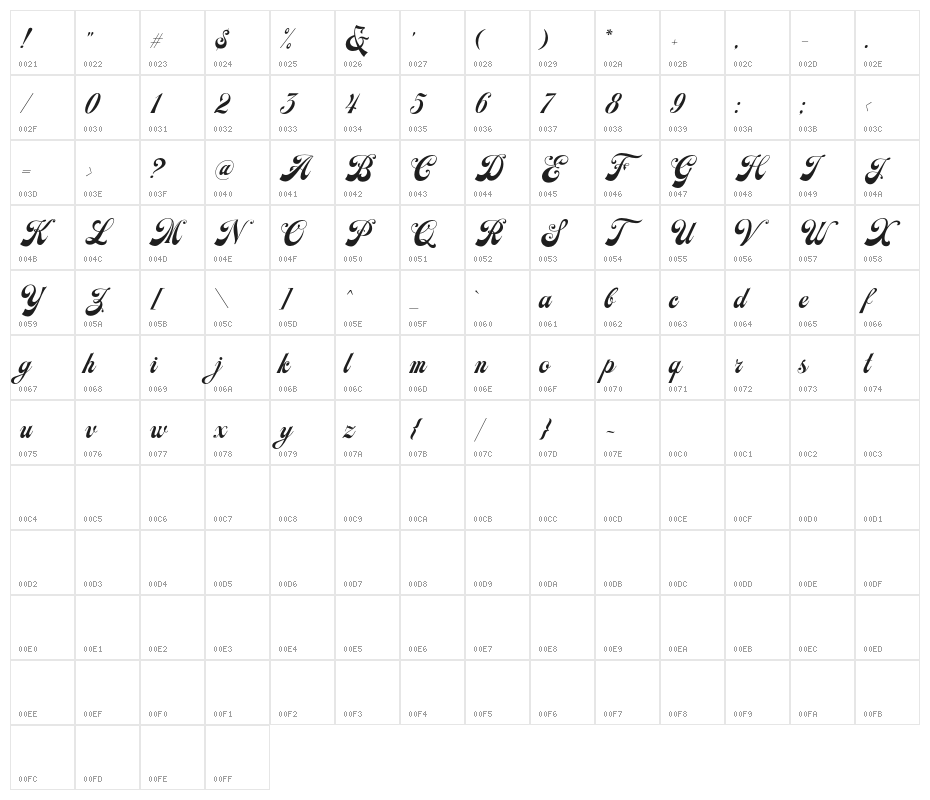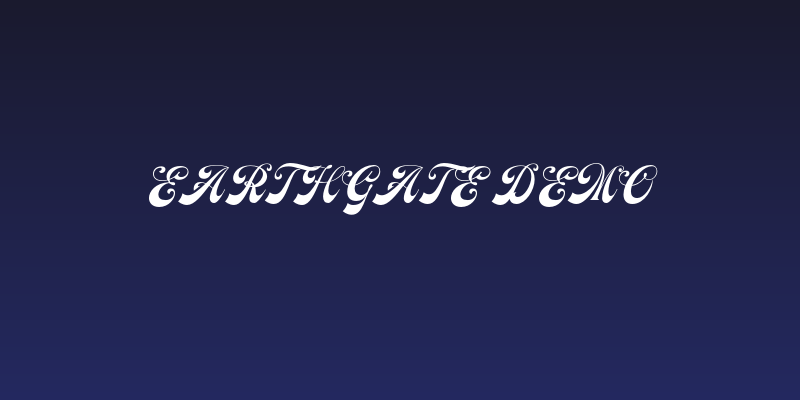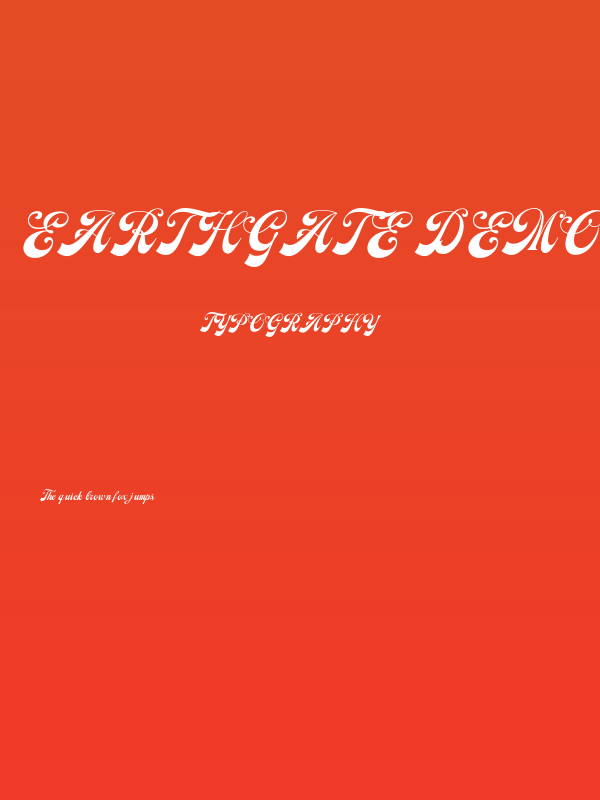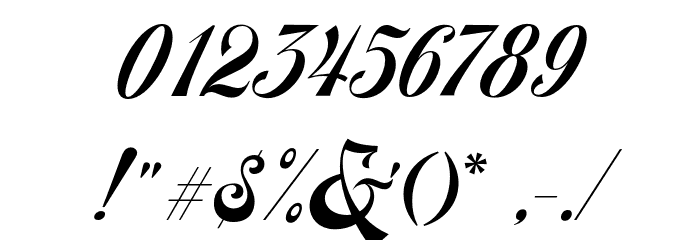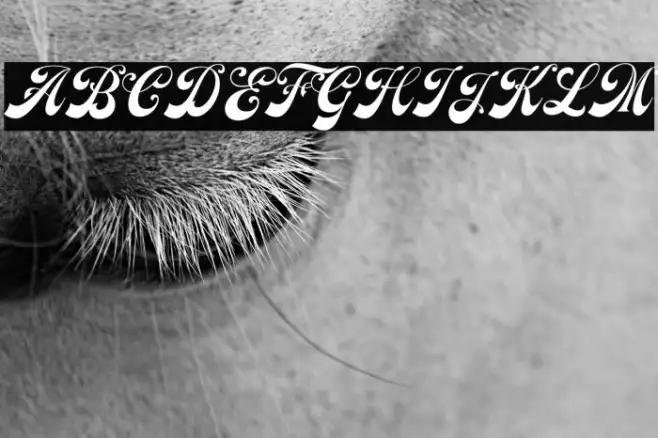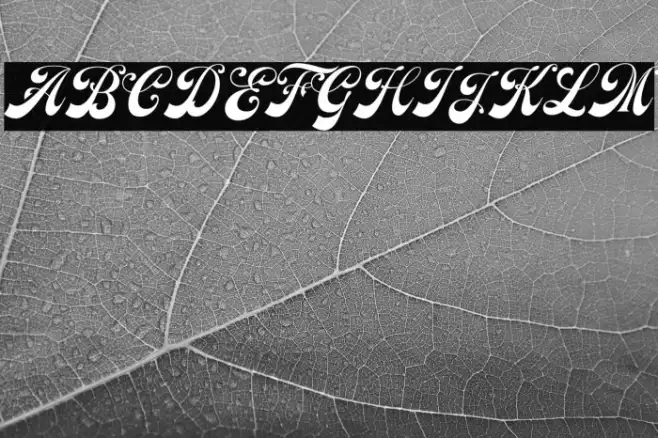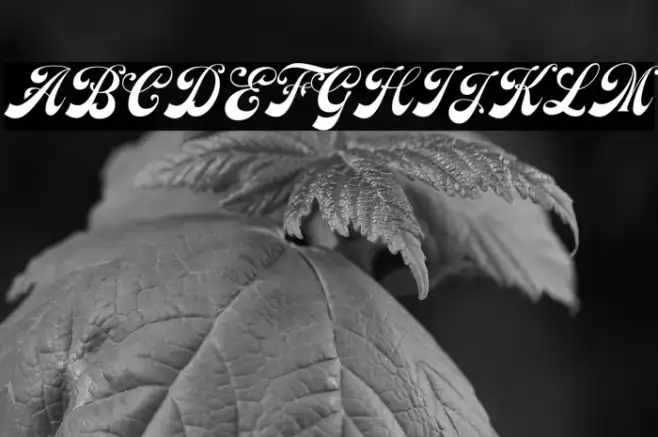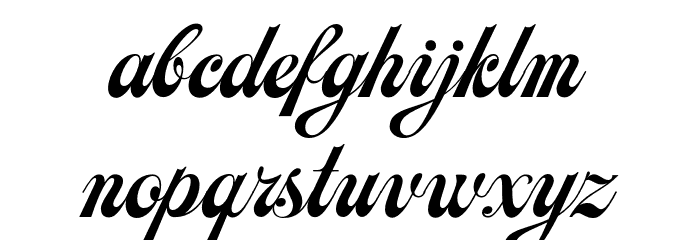
Earthgate DEMO Font
Earthgate DEMO Description
This font features an elegant and ornate script style, characterized by its flowing, cursive letterforms and decorative flourishes. The uppercase letters are particularly elaborate, with intricate loops and swirls that add a sense of sophistication and grandeur. The lowercase letters maintain a consistent cursive style, offering a harmonious blend with the uppercase. The numerals and special characters are designed to match the overall aesthetic, ensuring a cohesive appearance across all text elements. The font's bold strokes and high contrast between thick and thin lines enhance its readability while maintaining its decorative appeal. This style is reminiscent of classic calligraphy, making it suitable for formal and elegant designs.
| Proposed Projects | Ideal for wedding invitations, luxury branding, certificates, and elegant packaging designs. |